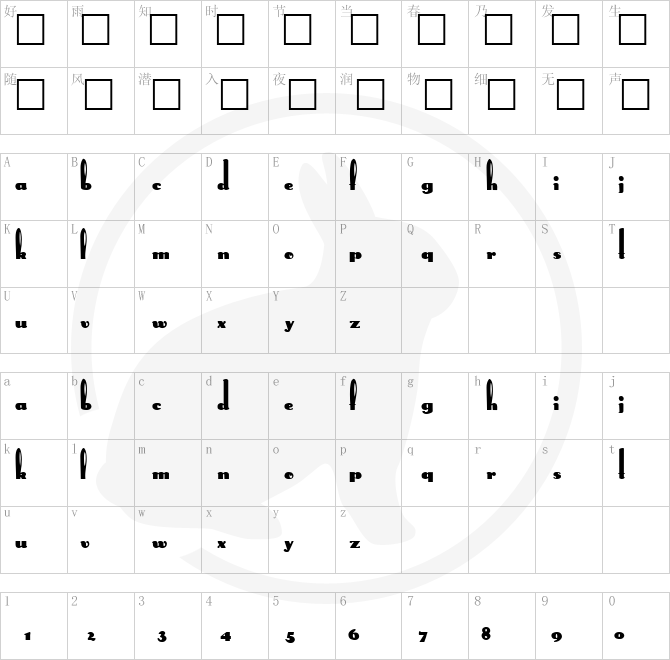
- Font Name:RabbitEars
RabbitEars-copy-1-.ttf is a very beautiful artistic font, RabbitEars-copy-1-.ttf is widely used in the design and printing of various books and pictures,RabbitEars-copy-1-.ttf has a strong visual impact,RabbitEars-copy-1-.ttf is a commonly used font in newspapers, magazines and books, and is used in posters, e-commerce Poster design, store design, logo design, font design and other fields.RabbitEars-copy-1-.